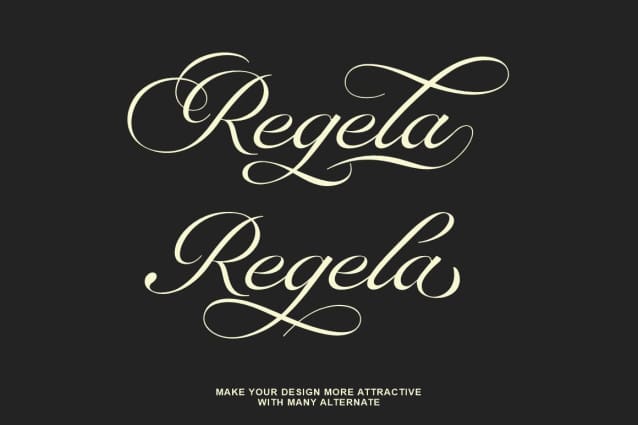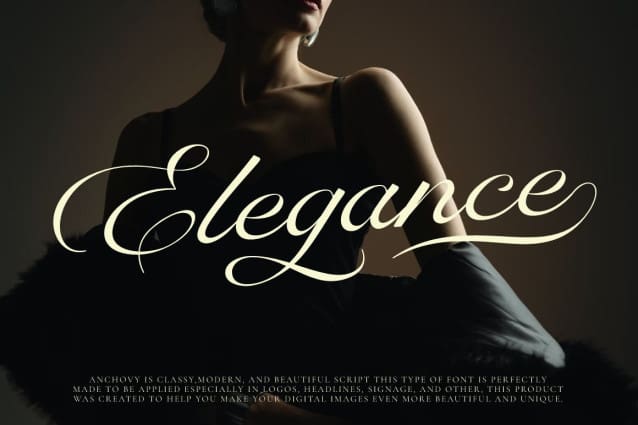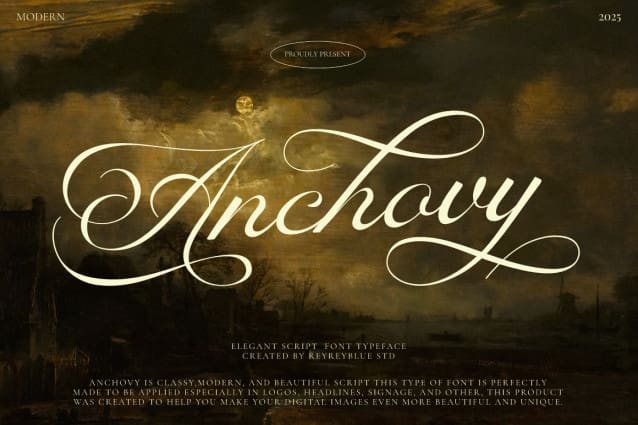
Rb Anchovy Font
Rb Anchovy Font – a sleek, ultra-modern script designed to imbue any project with sophistication and elegance. Crafted with modernity and refinement in mind, this typeface is sure to infuse your design with a sense of style and luxury. RB Anchovy’s clean lines and seamless curves bring a fresh elegance to each stroke, ensuring your project stands out with an enriched aesthetic appeal.
RB Anchovy is perfect for technology, digital, and a space galaxy theme. It is also suitable for movies, documentaries, logos, posters, games, book covers, headlines, titles, and many more projects. Add this font to your creative ideas and notice how it will make them stand out!